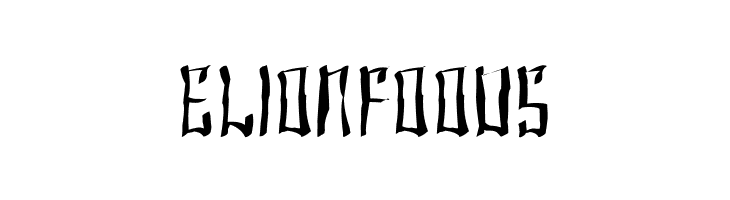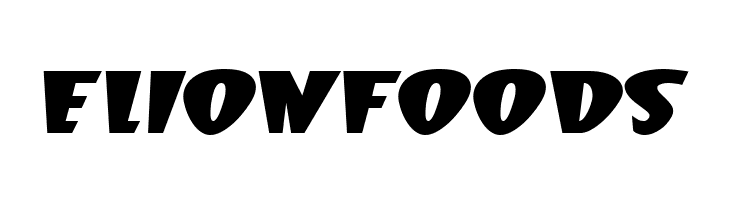
A distressed, edgy font with a hand-drawn, rugged appearance.
A bold, angular font with sharp lines and a distinctive, edgy style.
A modern, geometric font with a doubled line effect for added depth.
A bold, hand-drawn style font with a rugged, organic appearance.
A bold, dynamic font with sharp angles and a playful, energetic feel.